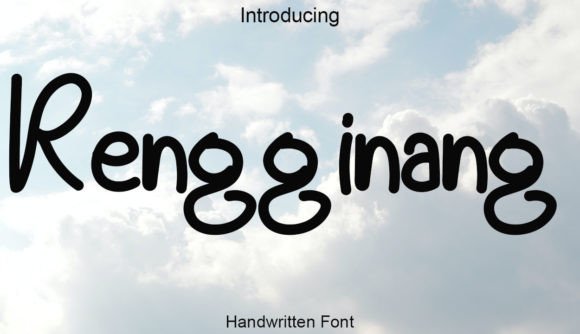
Indulge in the captivating grace of Rengginang Font, a script masterpiece designed to ignite your imagination and elevate your designs to breathtaking heights.
Experience the allure of this exquisite handwritten font, where each stroke whispers a tale of elegance and finesse. Its timeless charm will effortlessly transform your words into works of art, leaving an unforgettable impression on all who behold them.
Unleash your creativity with Rengginang's exceptional versatility. Whether you seek to craft captivating headlines that dance across the page or design alluring invitations that evoke a sense of timeless romance, Rengginang rises to every occasion with effortless grace.
Immerse yourself in the world of Rengginang, where imagination takes flight and beauty knows no bounds. Let its enchanting curves and delicate flourishes inspire you to create designs that resonate with emotion and leave a lasting legacy.
Embrace the power of Rengginang Font today, and embark on a creative journey where your words become a canvas for exceptional expression. Its enchanting allure awaits, ready to transform your designs into masterpieces that capture hearts and ignite dreams.